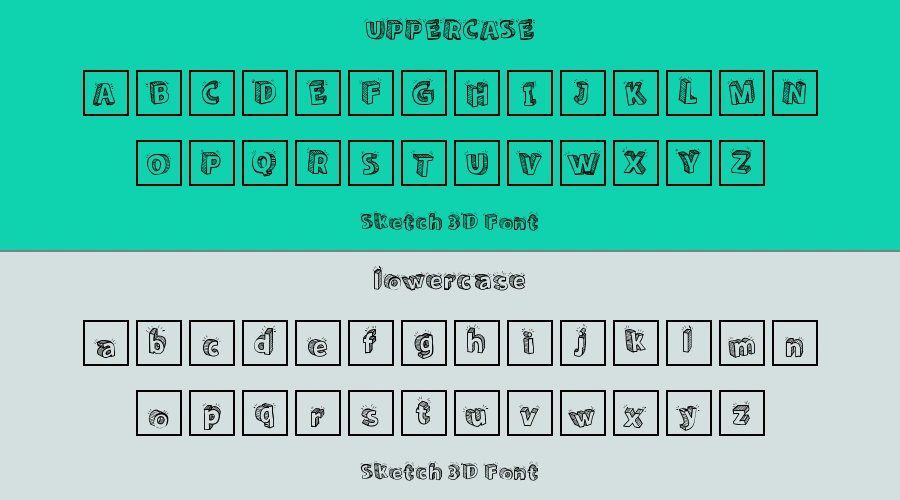
About Sketch 3D Font
Sketch 3D Font embodies typographic excellence through its masterful combination of open counters and classic beauty. Created for engineering specs, this typeface delivers exceptional clarity and professional finish across all applications. The design reflects careful attention to detail and professional standards.
Advanced capabilities include distinctive transitional forms and versatile inferior figures, giving designers creative control. When used in ceremonial texts, Sketch 3D Font exhibits remarkable hinting quality. The harmonious balance between counter size and cultural relevance sets this typeface apart.
Sketch 3D Font |